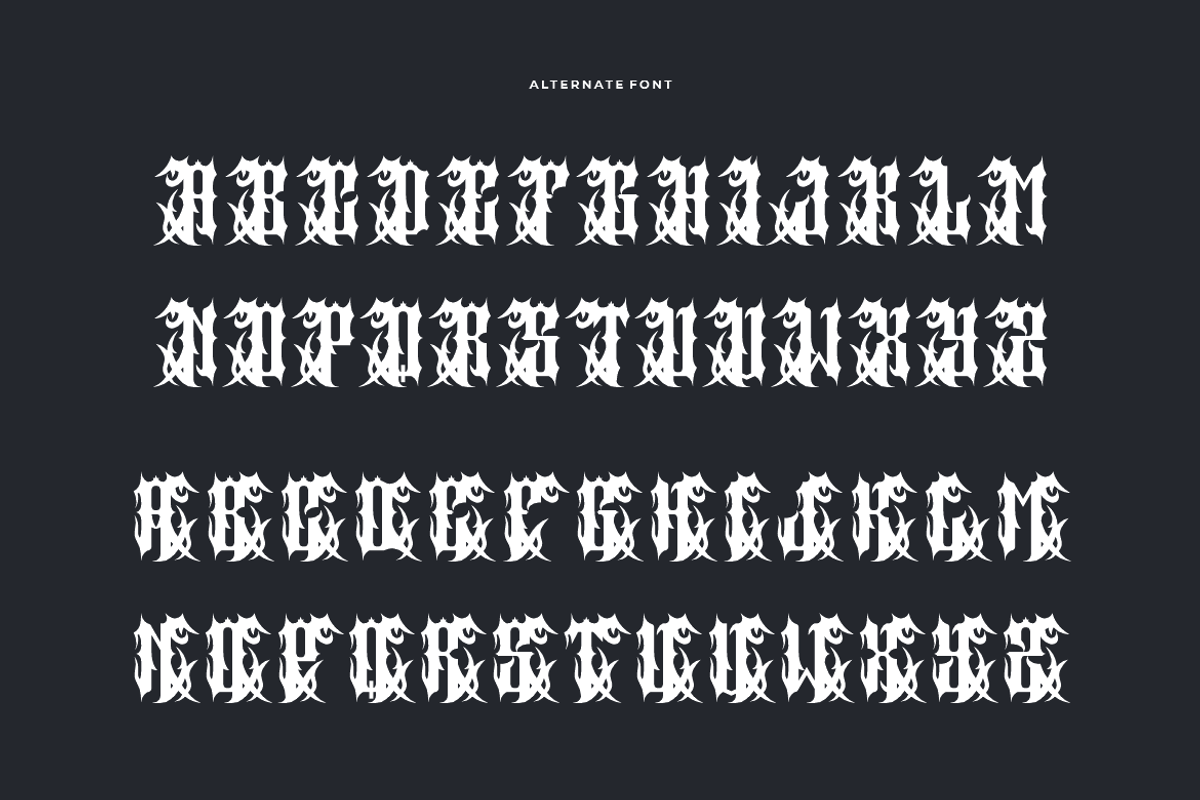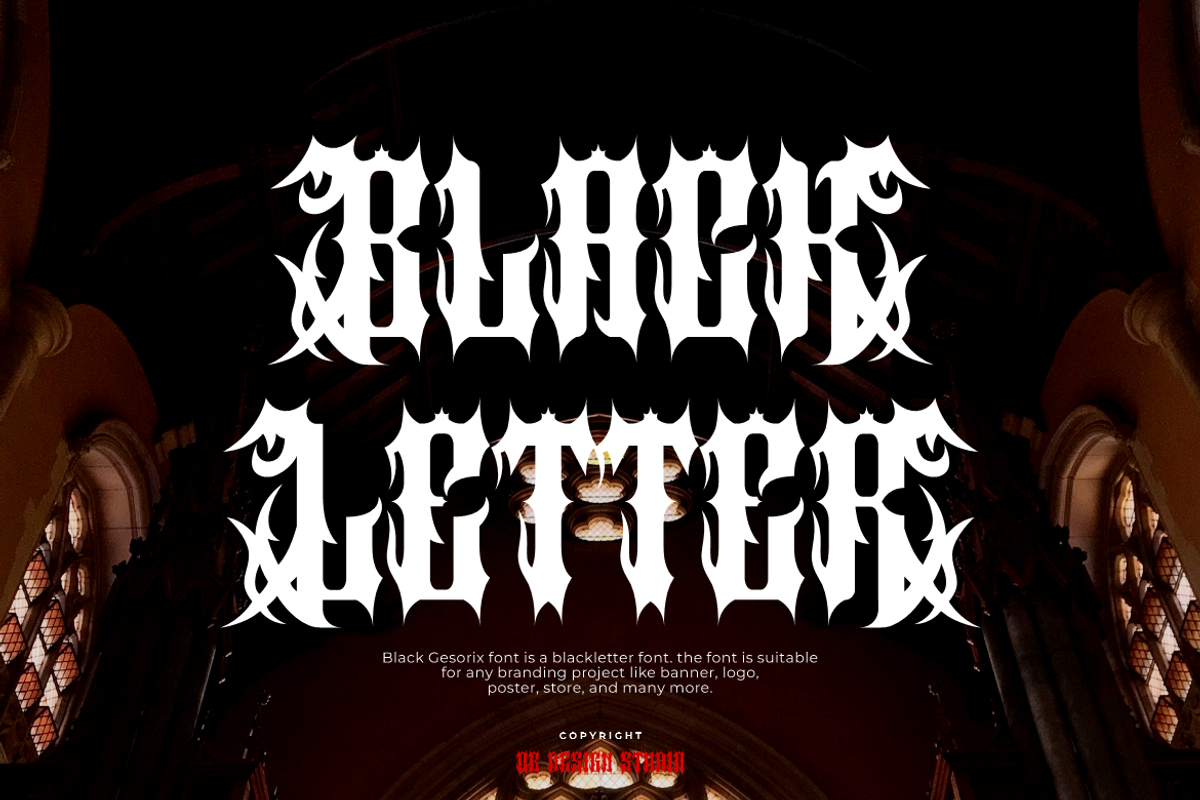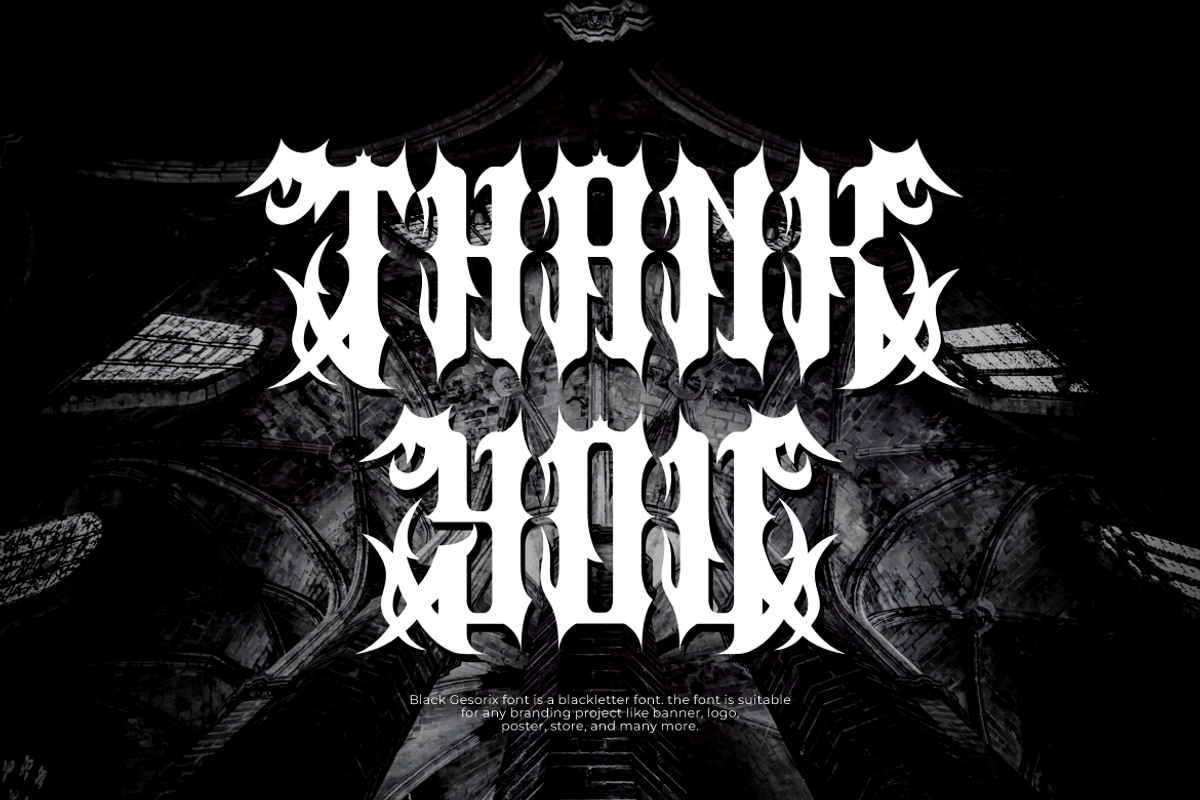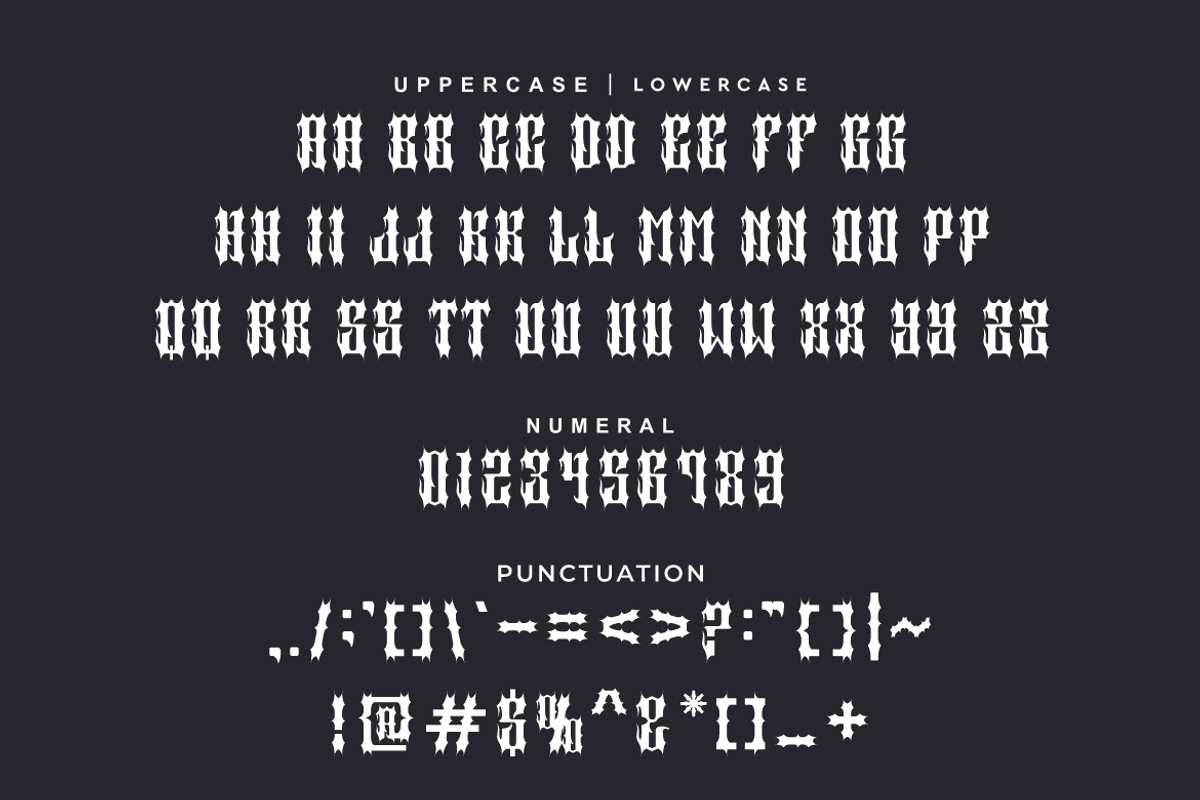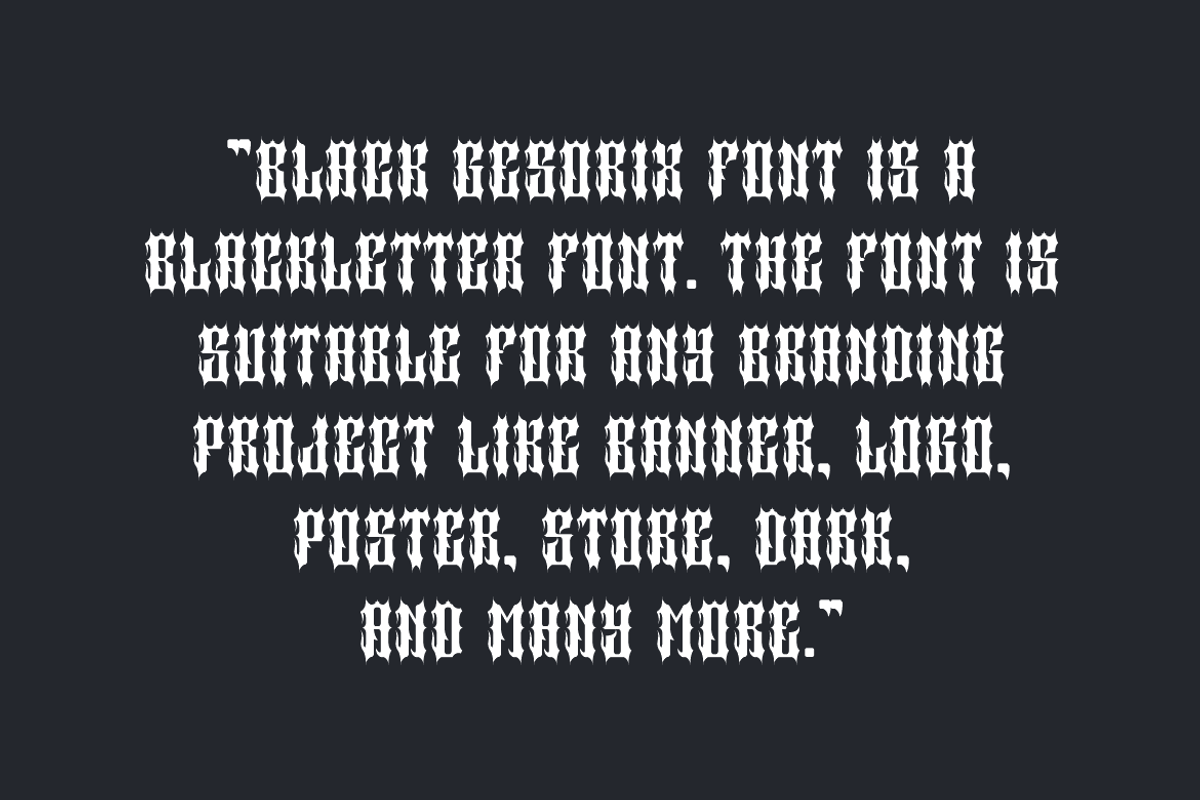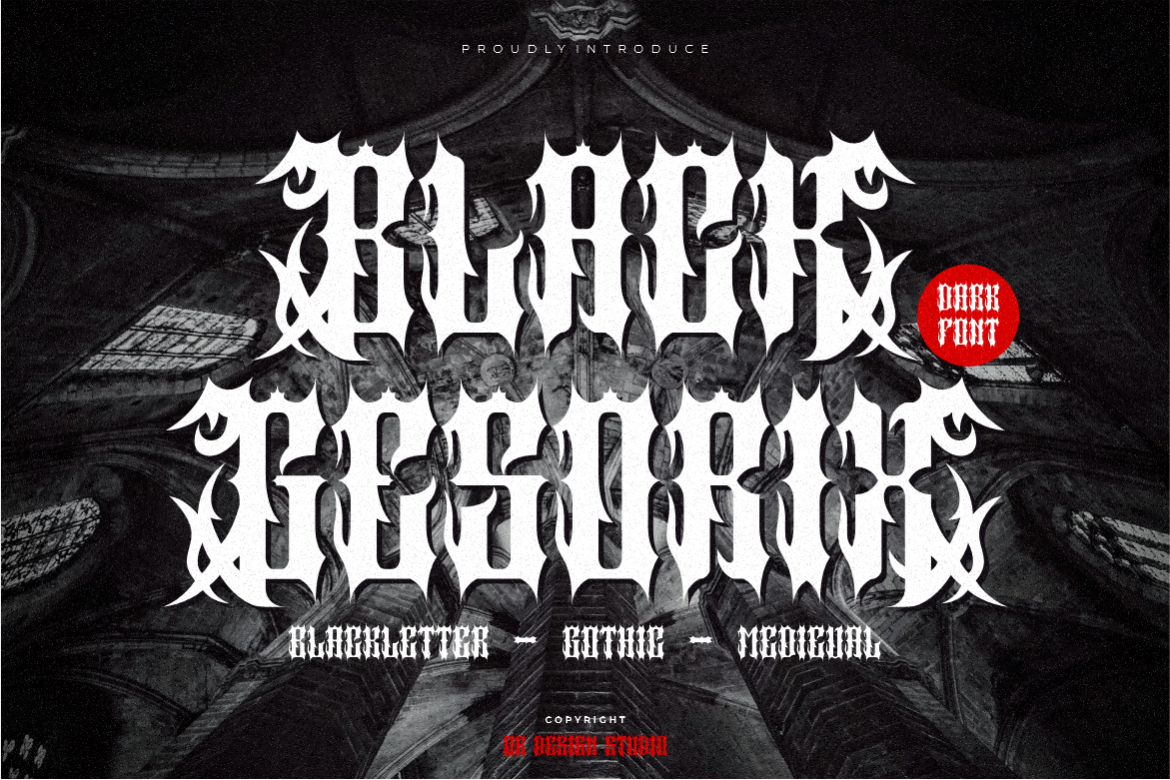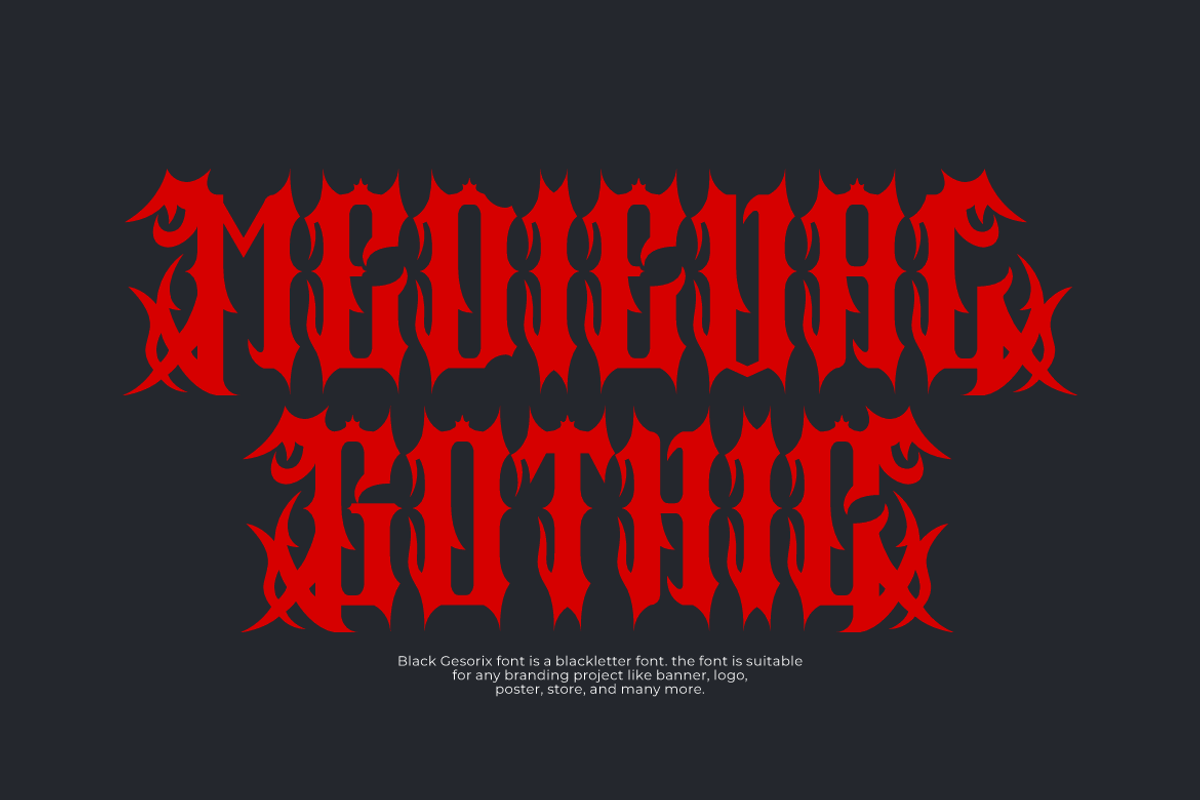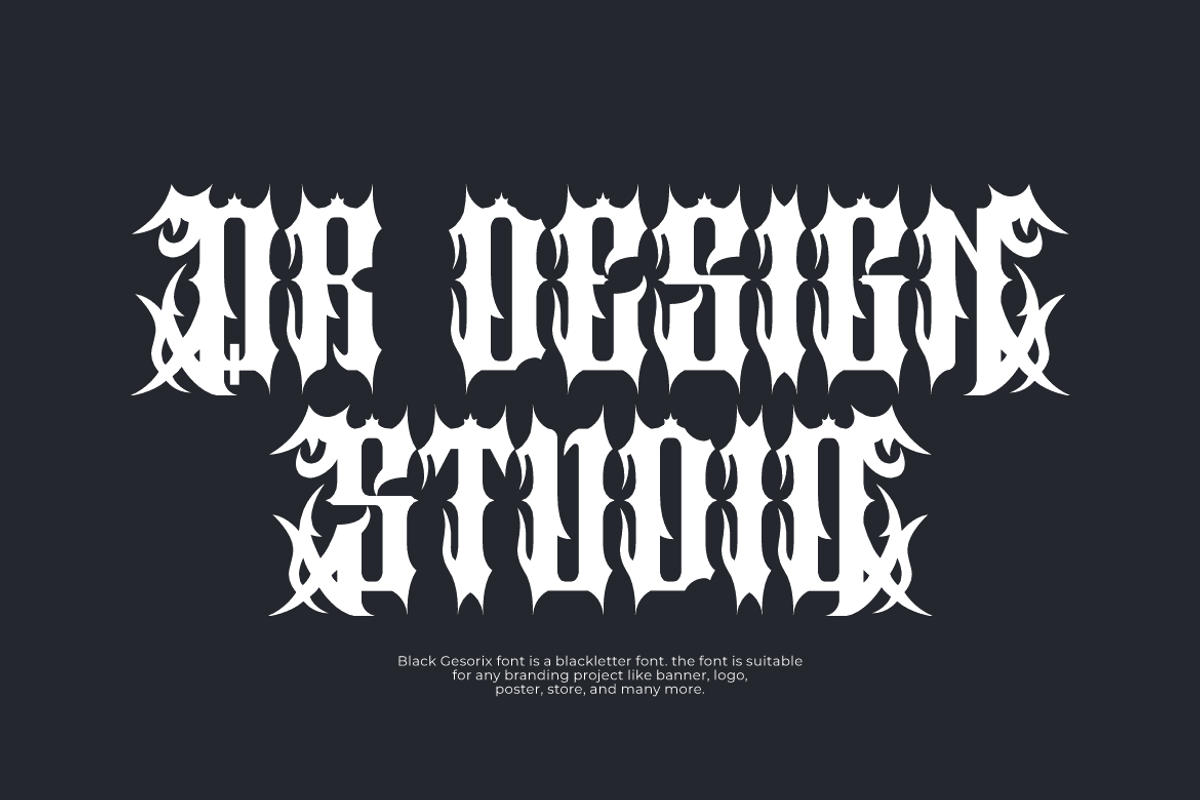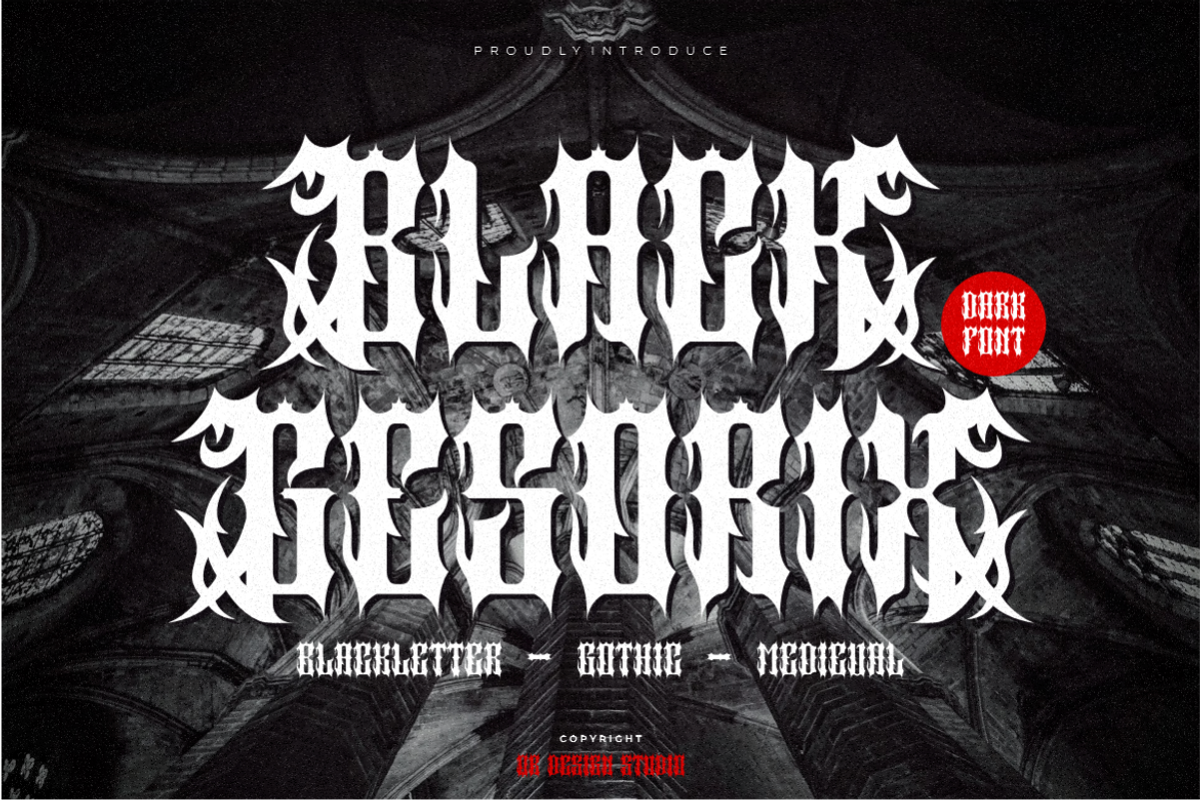
Black Gesorix - Gothic Font
Black Gesorix Font is a blackletter and authentic display font. The font is suitable for any branding project like poster, logo, sport, and many more. Outstanding in a wide range of contexts.